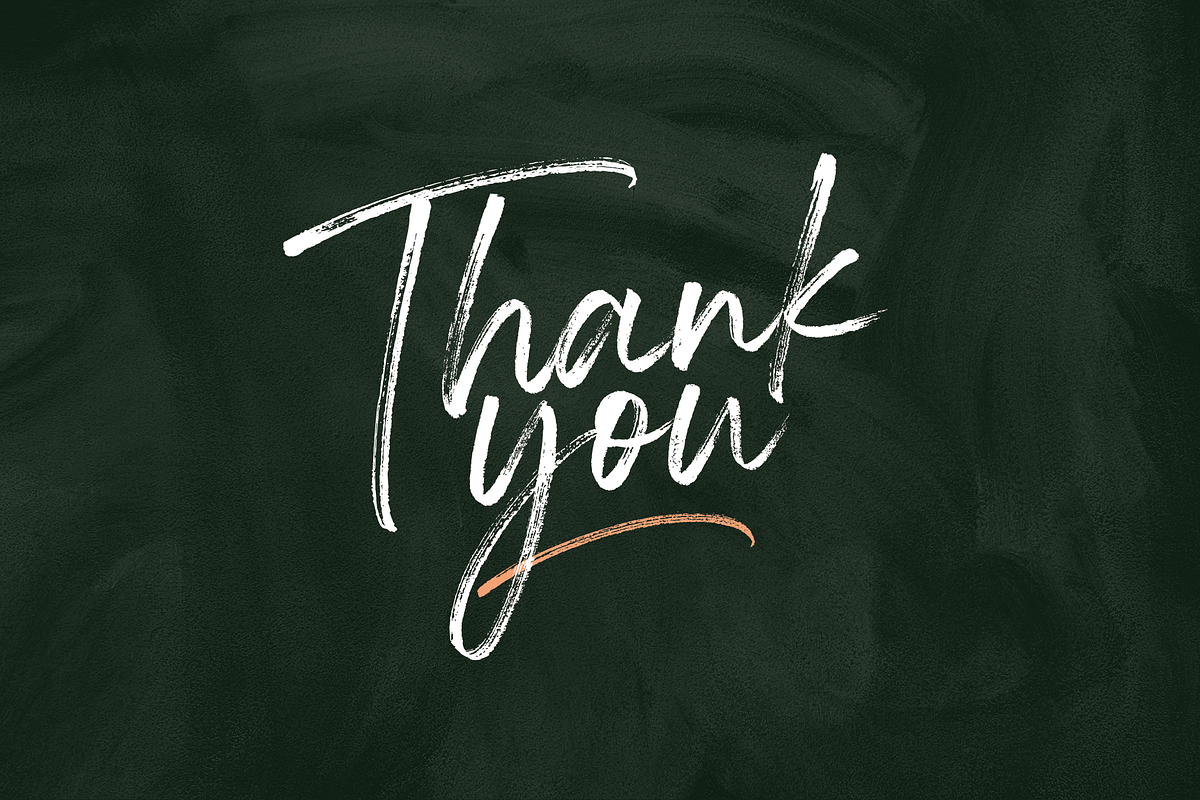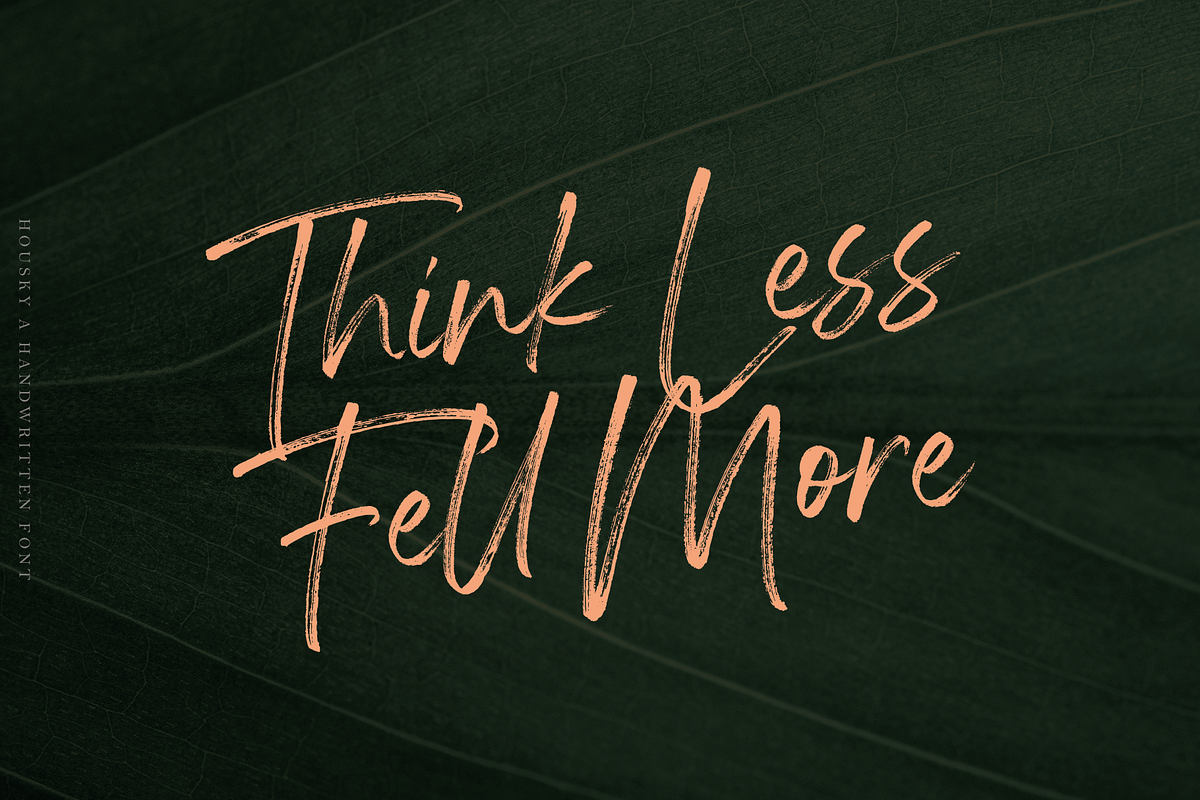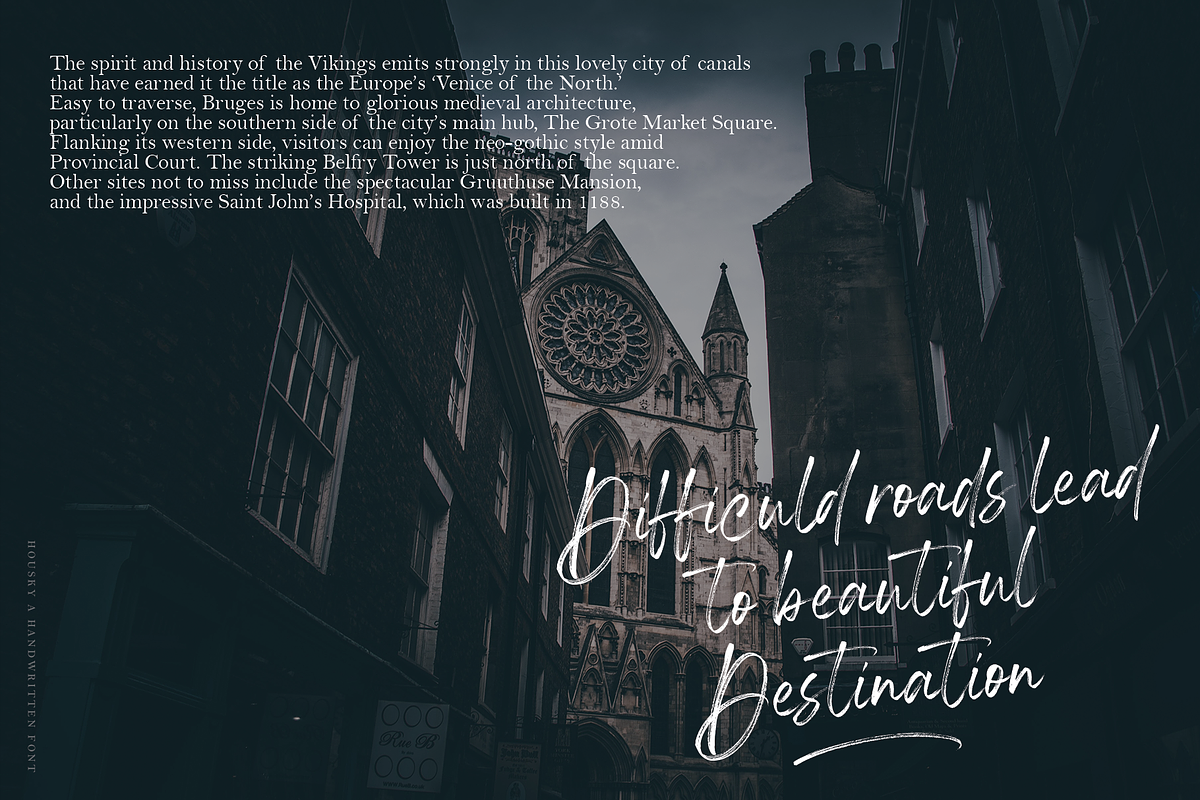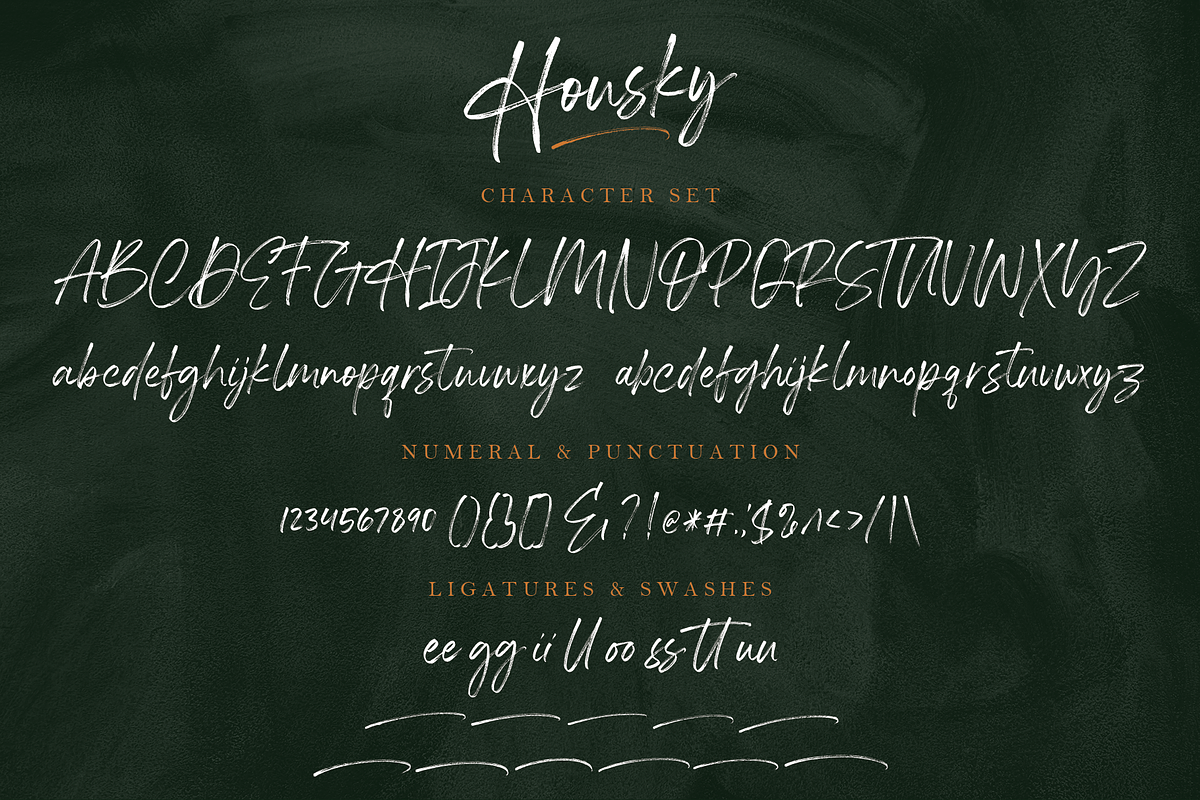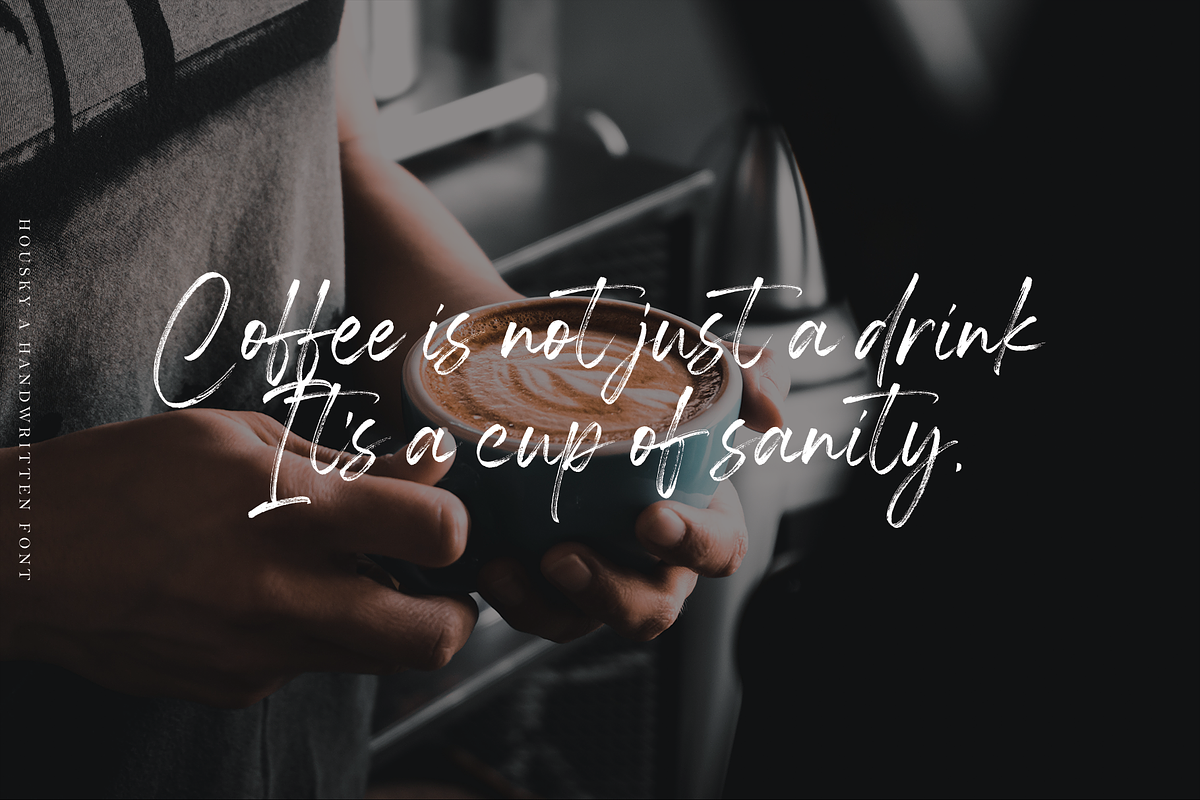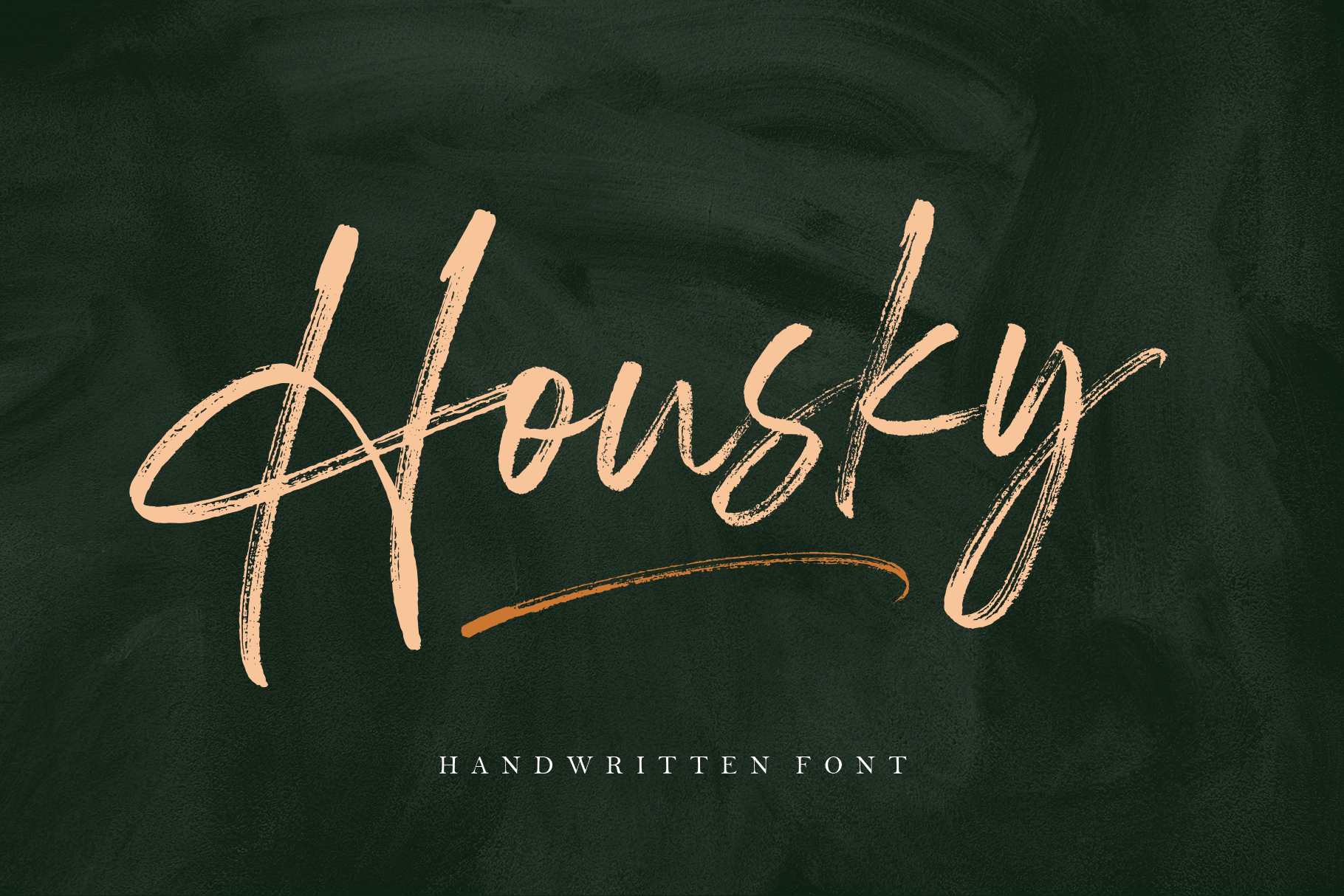
Housky - Handwritten Font
introducing the new font Housky Handwritten Font is a Hanwritten font with a distinctive and sharp texture brush. Housky is made by handwriting on paper with a coarse type brush, resulting in a consistent texture.
You can change Housky as you wish to create a unique style when several characters from the same letter meet, because Housky has alternative lowercase with a different style.
Housky handwritten fonts can also be used for various projects such as stationery invitations, social media, logos, weddings, branding, graphic design with the addition of several binders and swashes. and can be combined with various types of serif fonts to perfect the project you want to work on.